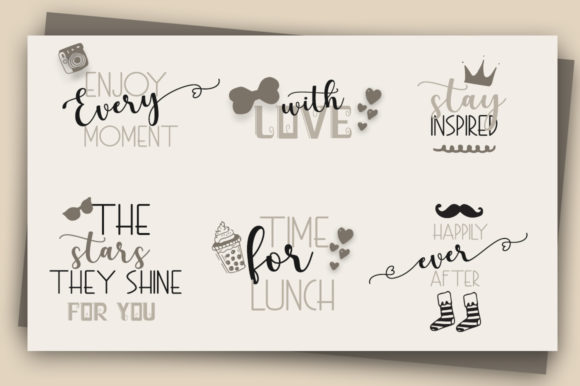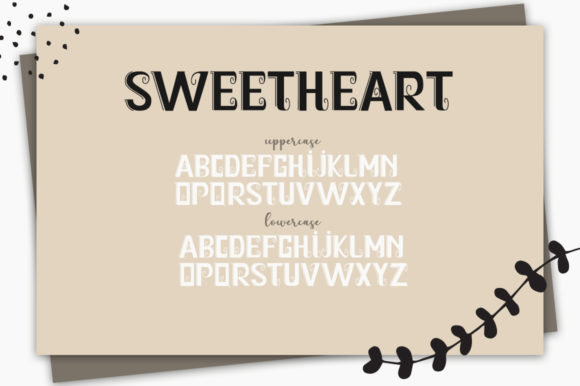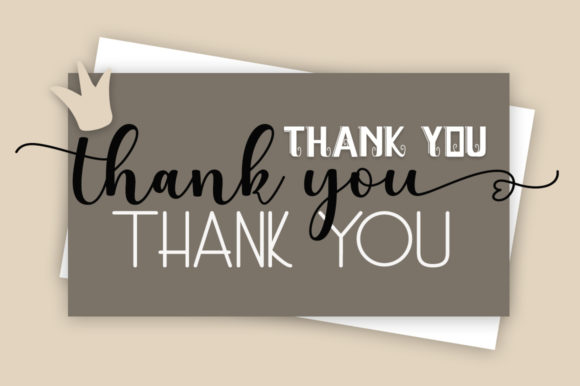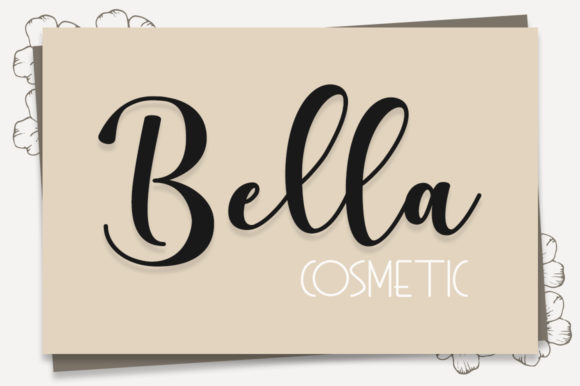
About Sweet Heart Font
Sweet Heart is a cute and playful font family (Script, Sans serif, and Display). Incredibly versatile, this font fits a wide pool of designs, elevating them to the highest levels.This font is PUA encoded which means you can access all of the glyphs and swashes with ease!